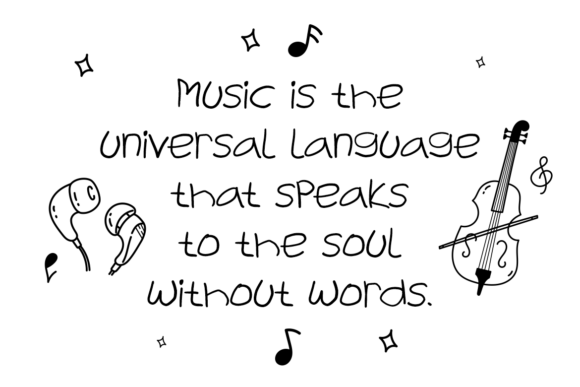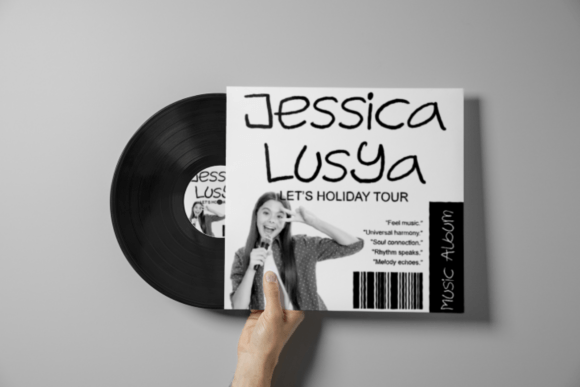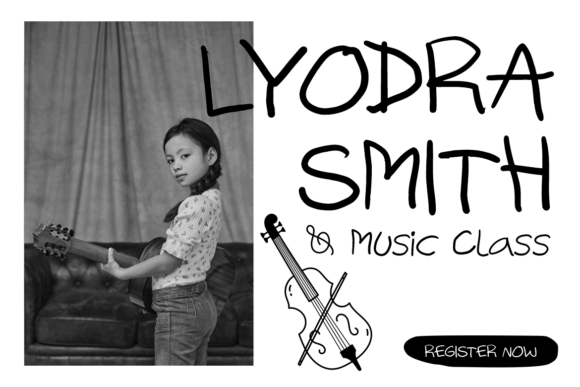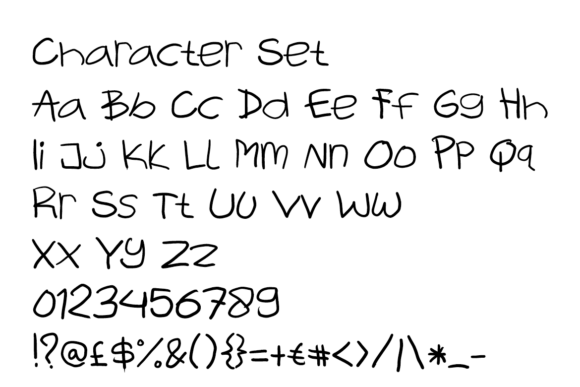
Introduction to Joybeat Font
Have you ever caught yourself doodling in a notebook or scribbling on a sticky note, letting your imagination run wild? That’s the kind of creative freedom that the Joybeat Font embodies. This delightful hand-drawn font is perfect for designers who want to add a touch of whimsy and personality to their projects.
As a design resource, Joybeat Font is a game-changer for creatives who want to make their designs stand out. With its high-quality, hand-crafted design, this font is ideal for a wide range of applications, from logos and branding to crafting and invitation cards. Whether you’re working on a commercial project or a personal creative endeavor, Joybeat Font is the perfect addition to your design toolkit.
Key Features of Joybeat Font
- High-quality, unique font design perfect for creative projects and design resources.
- Supports transparent background for seamless integration with design elements.
- Designed to be highly legible and visually appealing, making it ideal for digital and print applications.
Honest Review: Joybeat Font
I recently came across the Joybeat Font, and I must say it’s been a delightful discovery. As a designer, I’m always on the lookout for unique and high-quality design resources to elevate my creative projects. In this review, I’ll share my thoughts on what works well and what could be improved.
- ✨ A wide range of font styles and weights to suit different design needs.
- ✨ Perfect for creative projects that require a playful and energetic feel.
One of the standout features of the Joybeat Font is its transparent background, which makes it easy to customize and combine with other design elements. I’ve been using it for a recent project, and it’s been a game-changer.
- ⚠️ Not suitable for designs that require a more formal or serious tone.
The Joybeat Font is a free download design resource ideal for creative projects requiring a high-quality, visually appealing font. This versatile font features a transparent background, allowing for seamless integration with various design elements.
Tips for Getting the Most Out of Joybeat Font
Use Joybeat Font for titles, headings, and body text in your creative project.
Experiment with different font sizes and colors to create a visually appealing design.
Common Use Cases for Joybeat Font
Use Joybeat Font for:
Graphic design projects
Print materials (business cards, flyers, brochures)
Digital marketing materials (social media posts, email campaigns)